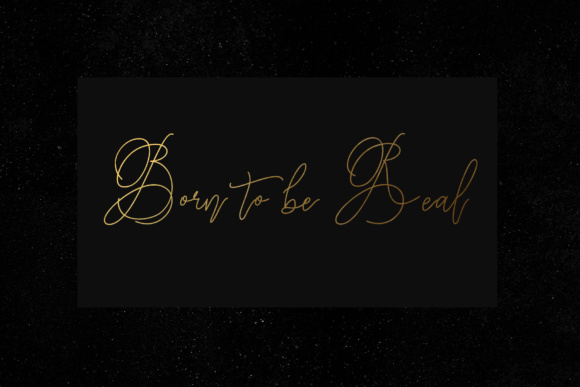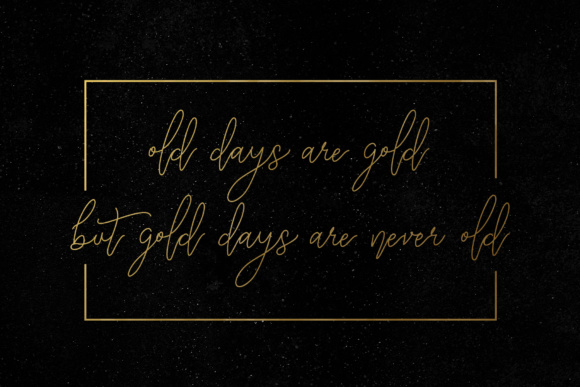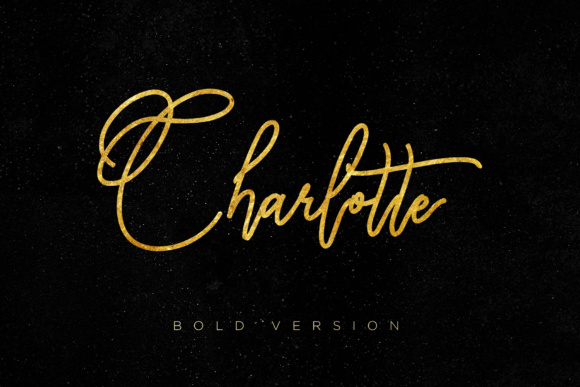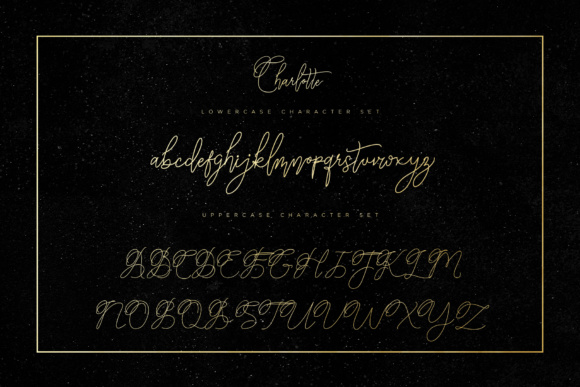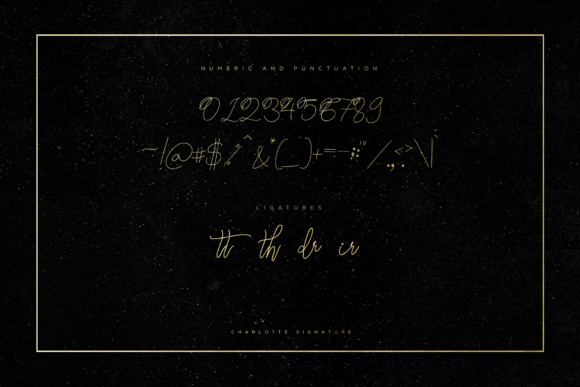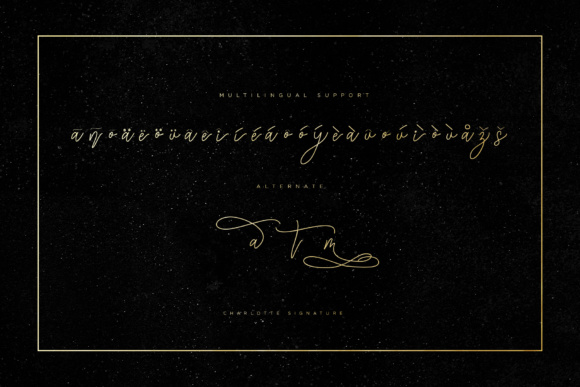
Introducing Charlotte Script Font: Elegance and Sophistication for Your Designs
Are you looking for a font that exudes elegance, sophistication, and femininity? Look no further than the Charlotte Script Font. This beautiful, decorative font is perfect for designers and crafters who want to add a touch of luxury to their projects. With its flourish uppercase letters, Charlotte Script is ideal for creating stunning wedding monograms and logos that will leave a lasting impression.
What Makes Charlotte Script Font So Special?
Charlotte Script is a unique and versatile font that can be used for a wide range of design projects. Its elegant and cursive style makes it perfect for:
- Branding and packaging
- Magazines and editorial design
- Florist shops and flower arrangements
- Restaurant menus and food blogs
Whether you’re a designer, crafty DIY enthusiast, or small business owner, Charlotte Script Font is a great addition to your font collection. Its feminine and sophisticated style is sure to impress your clients, friends, and family.
Key Features of Charlotte Script Font
Here are some of the key features that make Charlotte Script Font so special:
- Elegant and decorative design: Charlotte Script Font features beautiful, cursive letters with flourishes that add a touch of luxury to your designs.
- Feminine and sophisticated style: This font is perfect for designs that require a feminine and elegant touch, such as wedding invitations and floral arrangements.
- Flourish uppercase letters: The uppercase letters in Charlotte Script Font feature beautiful flourishes that make them perfect for monograms and logos.
- Versatile and adaptable: This font can be used for a wide range of design projects, from digital graphics to print materials.
How to Use Charlotte Script Font in Your Designs
Using Charlotte Script Font in your designs is easy and straightforward. Here are some tips to get you started:
- Pair it with a simple font: Charlotte Script Font is a decorative font, so it’s best to pair it with a simple font for body text.
- Use it for headings and titles: This font is perfect for headings and titles, where you want to make a statement and add some elegance to your design.
- Experiment with different colors: Charlotte Script Font looks great in a variety of colors, from soft pastels to rich jewel tones.
- Add some flourishes: The flourish uppercase letters in Charlotte Script Font are perfect for adding some extra elegance to your designs.
Charlotte Script Font is a beautiful and elegant font that is perfect for designers and crafters who want to add a touch of luxury to their projects. With its flourish uppercase letters and sophisticated style, this font is ideal for wedding monograms and logos, as well as a wide range of other design projects. Whether you’re a seasoned designer or just starting out, Charlotte Script Font is a great addition to your font collection.